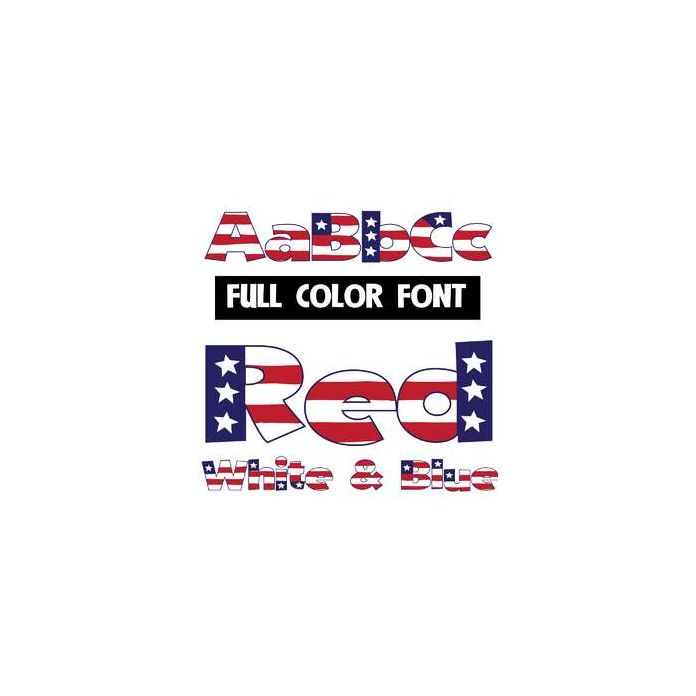
This full-color font features Americana stars and stripes. This font works best for titles, displays, posters and more. Please note color fonts will show as black in non compatible programs. This font type is compatible with Silhouette Studio.